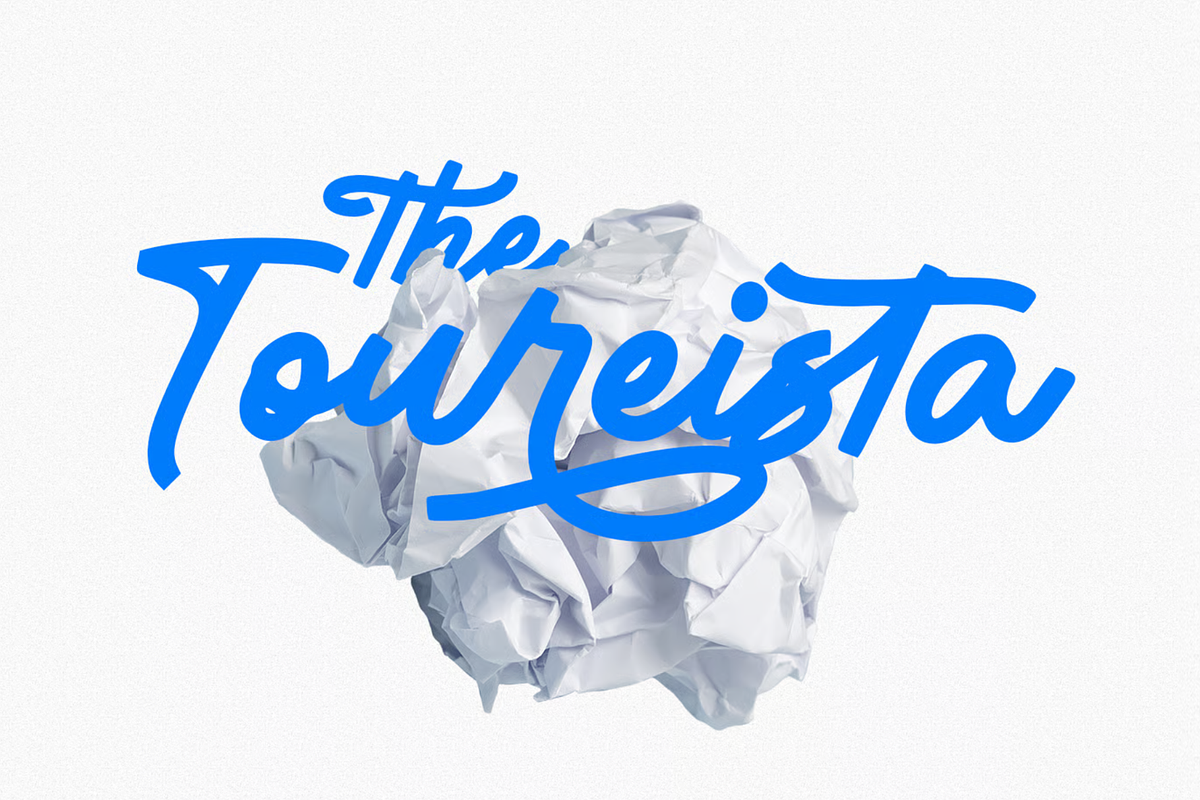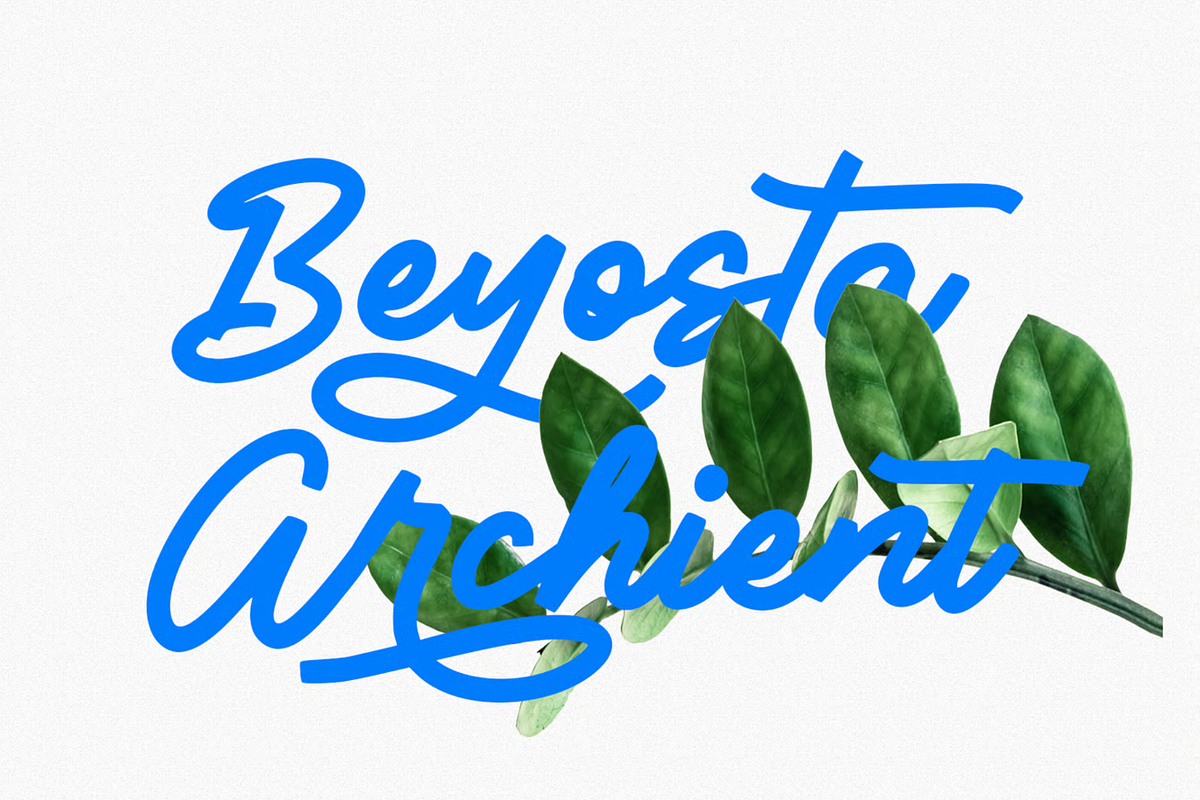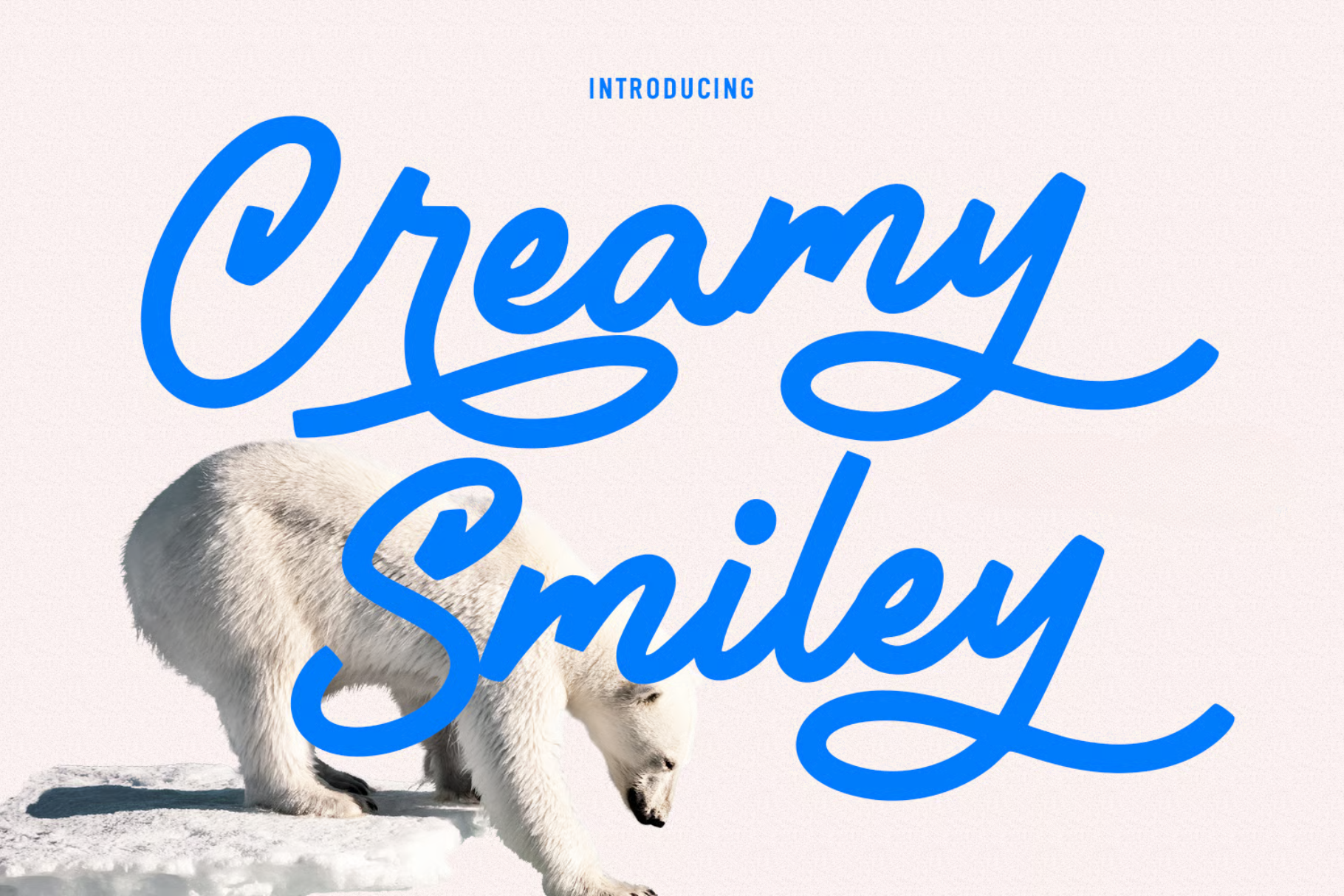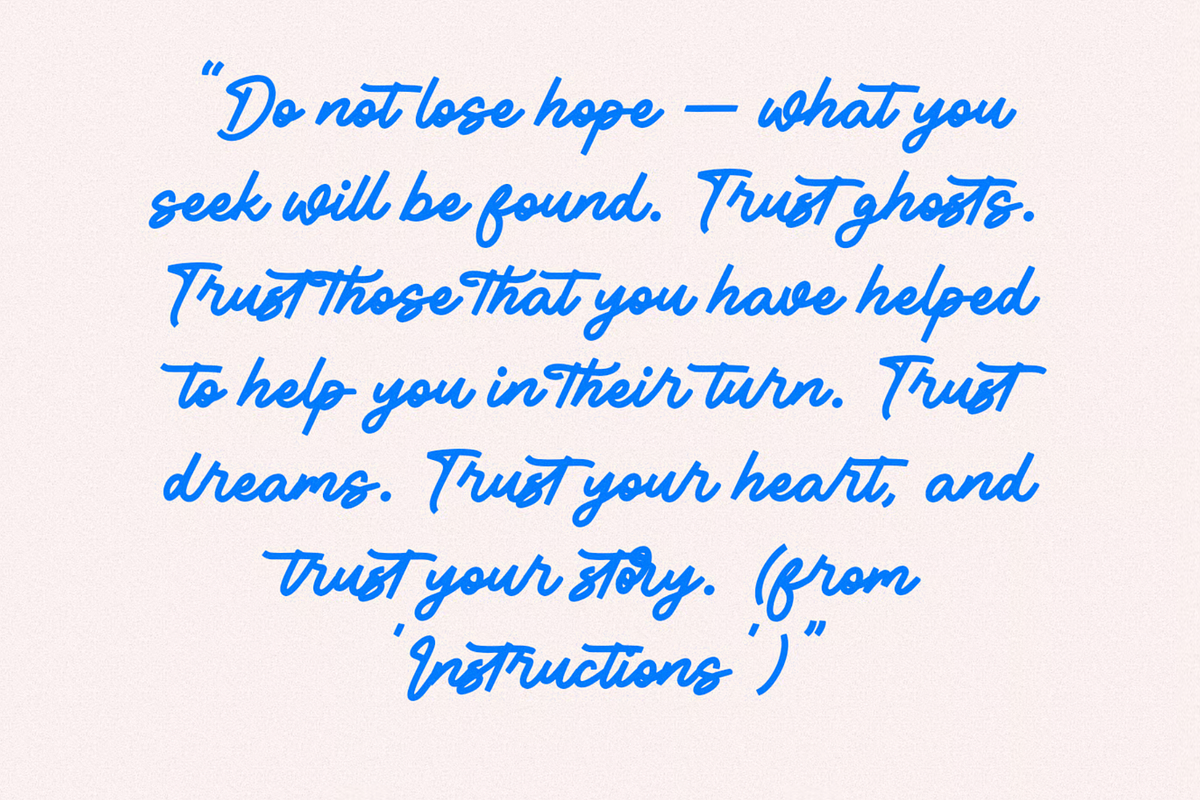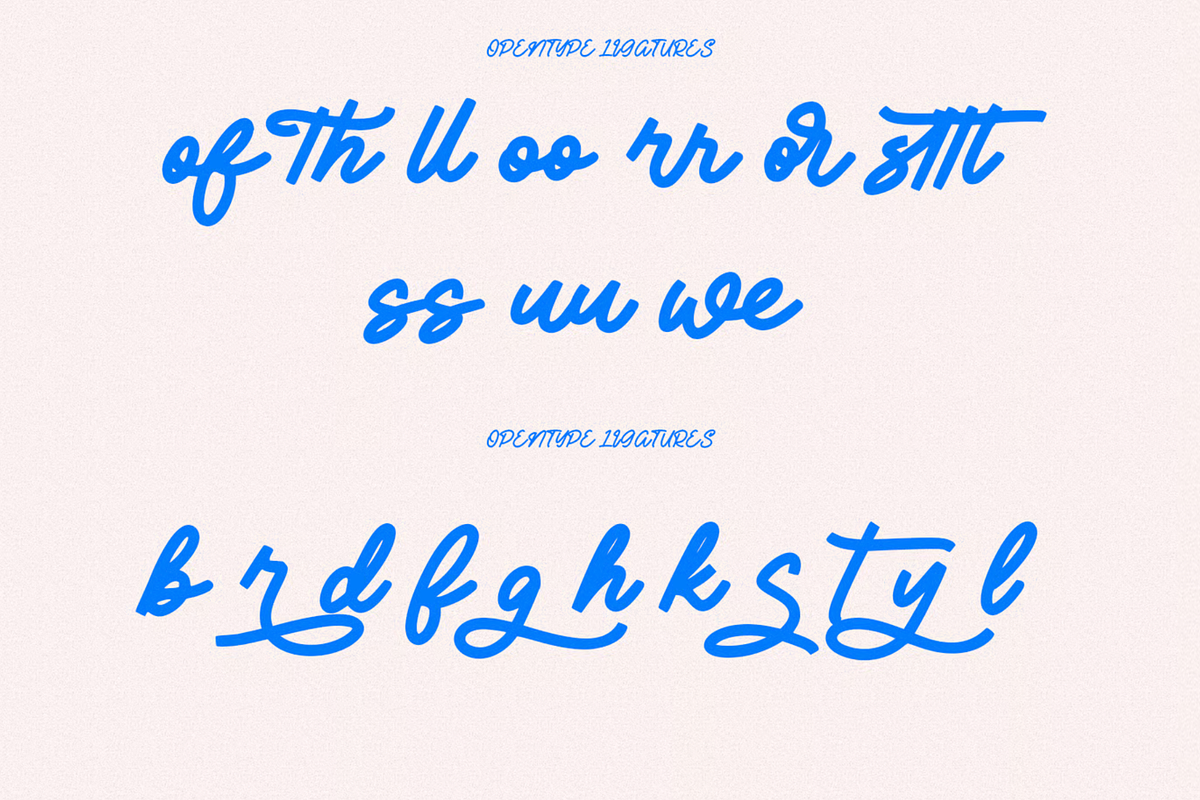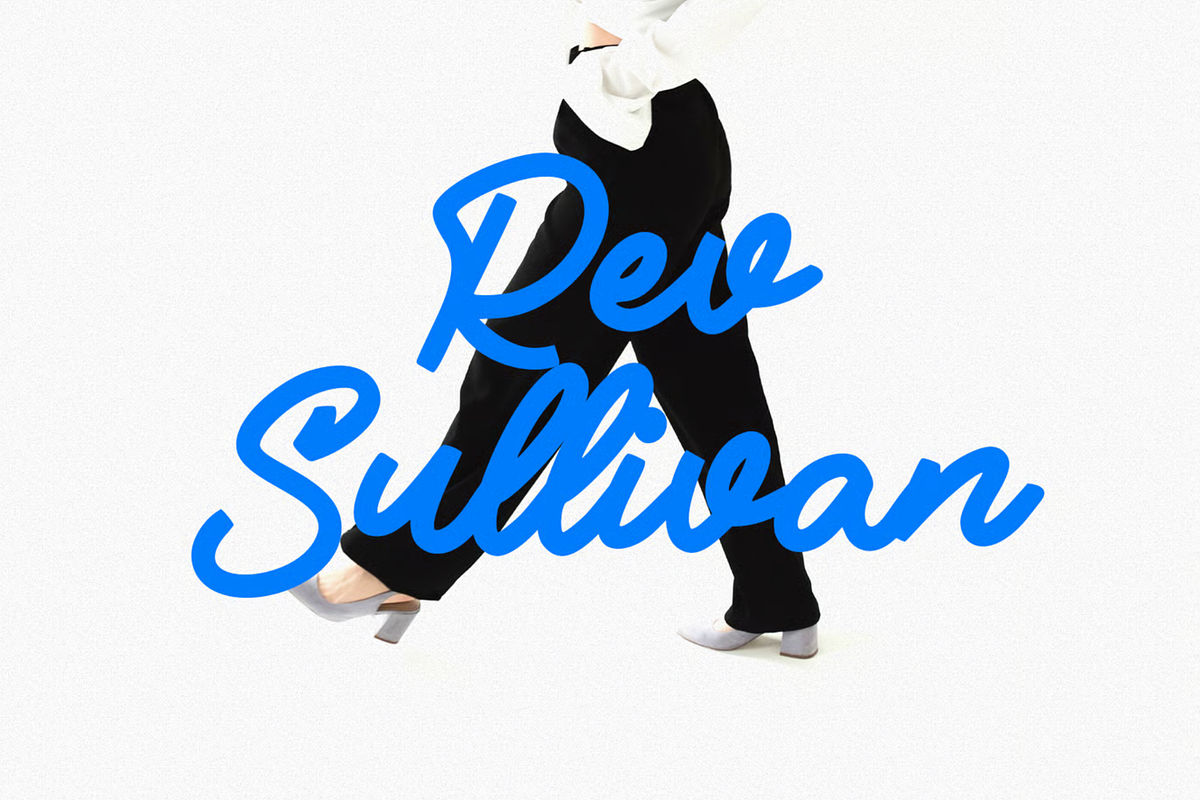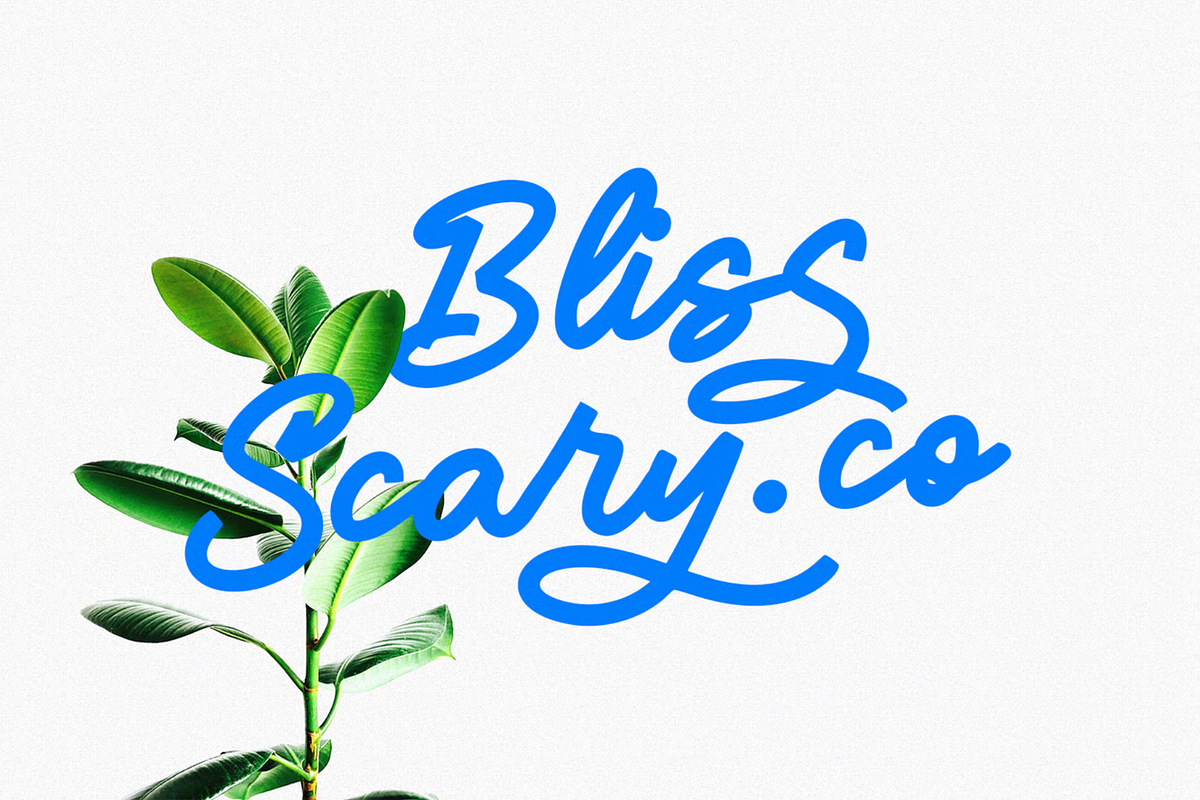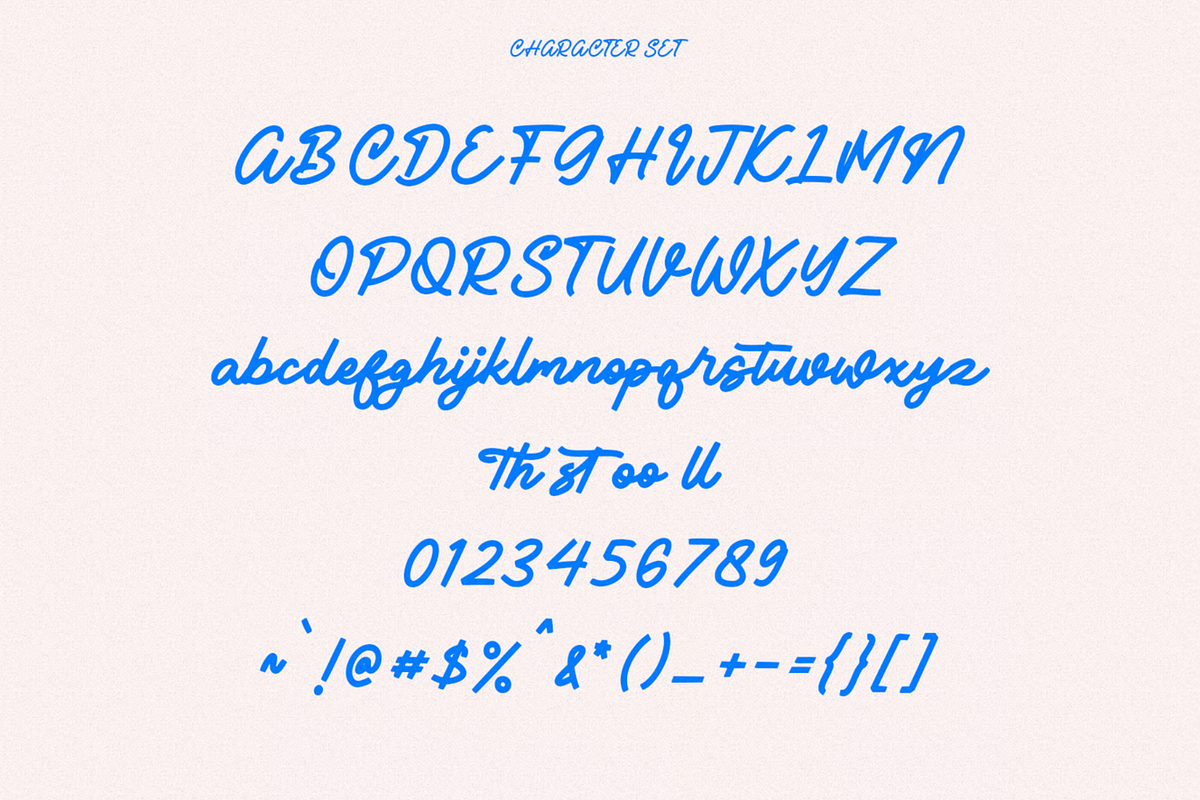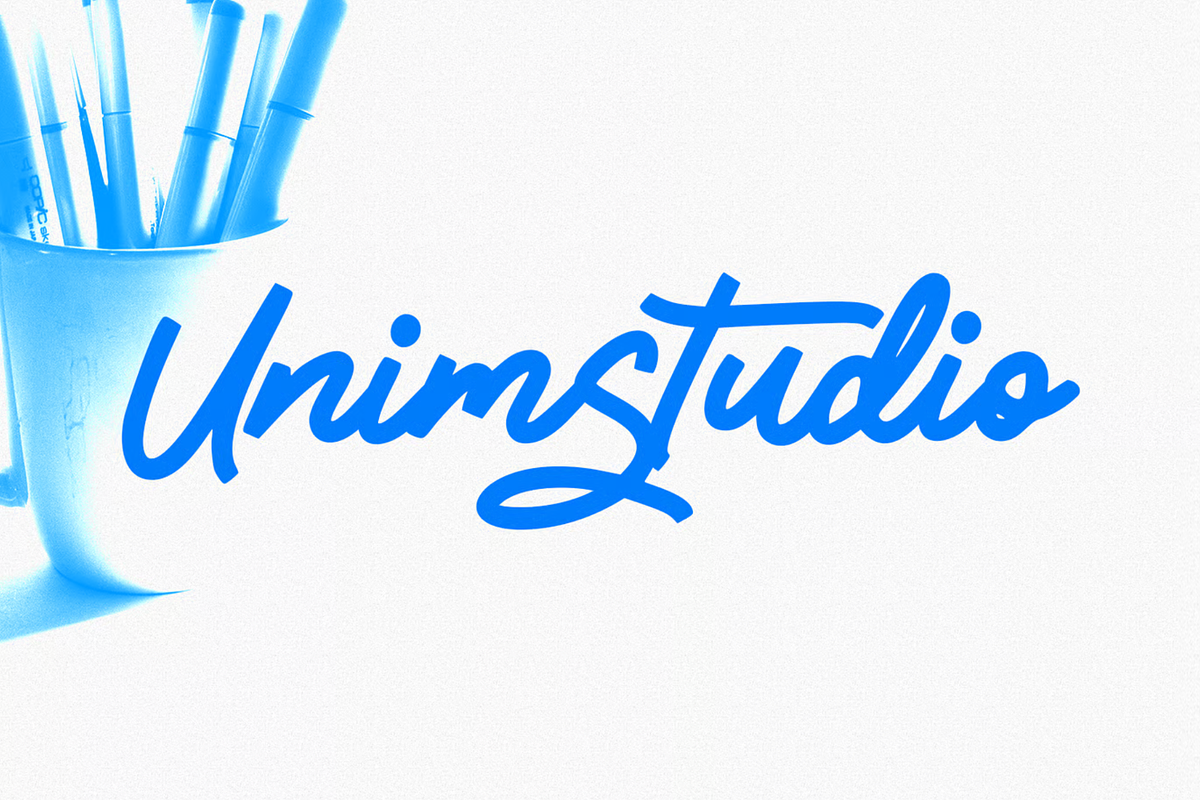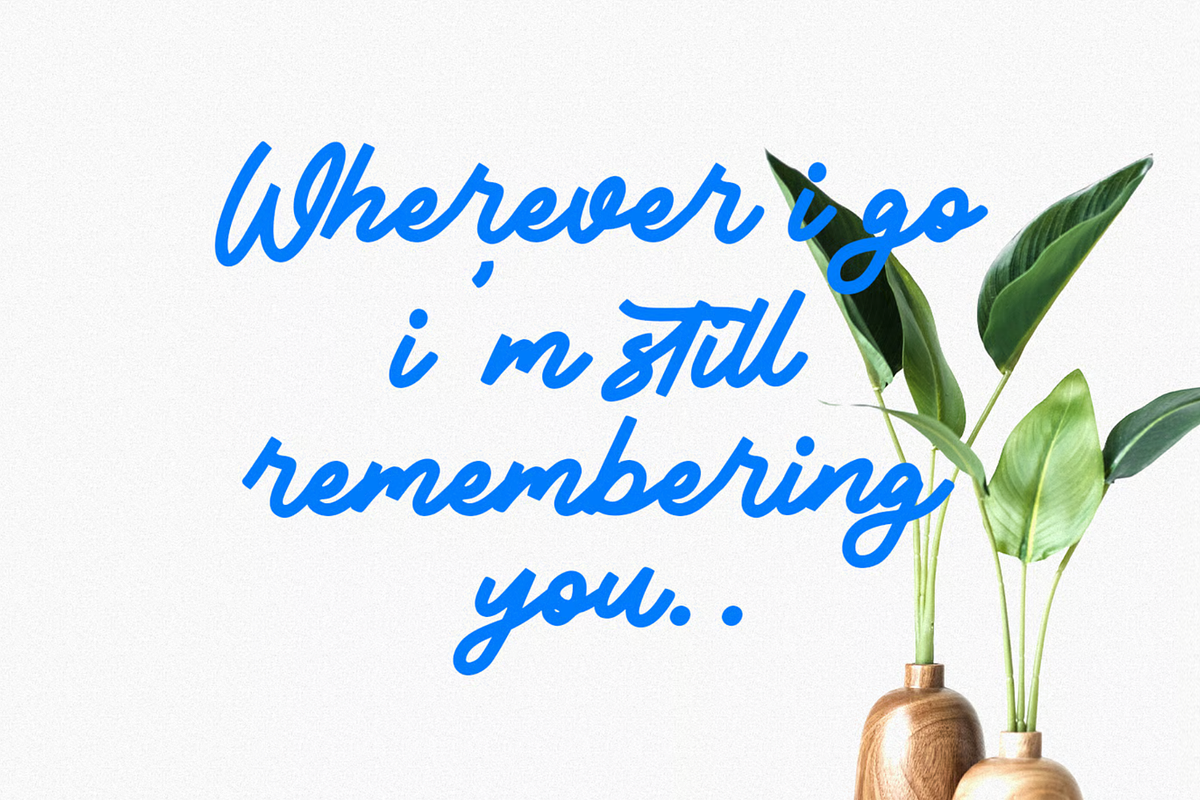
Creamy Smiley Script Font
Creamy Smiley is a casual handwritten script font. With medium mono-line consist stroke, fun character with a bit of ligatures and alternates. To give you an extra creative work. Creamy Smiley font support multilingual more than 100+ language. This font is good for logo design, Social media, Movie Titles, Books Titles, a short text even a long text letter and good for your secondary text font with sans or serif. Make a stunning work with Creamy Smiley font.